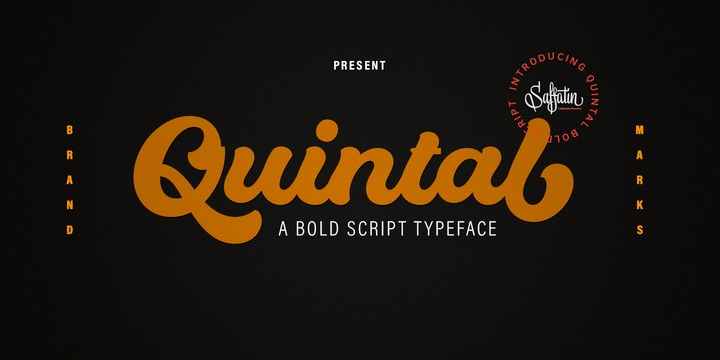
Quintal Script Font
Quintal Script Font is perfect for various design applications including artisan marketplace branding, farmhouse restaurant signage, organic product packaging, rustic wedding invitations, countryside retreat logos, handcrafted goods labels, rural tourism promotions, traditional craft workshop materials, heritage brand identities, and authentic country lifestyle campaigns. This charming typeface excels in projects requiring rural authenticity and traditional craftsmanship appeal that celebrates the timeless values of countryside living and handmade quality.
What makes Quintal Script Font so exciting is its authentic representation of rural heritage and traditional craftsmanship through flowing script letterforms that capture the warmth and personal touch of countryside artisans. The font features organic curves reminiscent of hand-painted farm signs, natural flow patterns that suggest traditional penmanship, and gentle imperfections that evoke the honest character of handcrafted work. Its distinctive rustic elegance and authentic charm make it perfect for brands seeking to communicate traditional values, artisanal quality, and the enduring appeal of countryside authenticity.
The Quintal Script Font family includes regular and bold script weights, along with decorative swashes and rustic ornamental elements that enhance its versatility for different countryside applications. Each style maintains the font's signature rural character while providing options for various traditional design approaches. The family also features farmhouse decorative elements, botanical flourishes, and heritage-inspired borders that can be combined with the letterforms to create cohesive countryside design systems.
Whether you're developing rural brands, artisan products, or countryside tourism campaigns, Quintal Script Font Free Download delivers authentic typography that speaks directly to audiences seeking genuine connection with traditional values and handcrafted quality. This typeface transforms modern communications into warm, welcoming messages that celebrate the enduring appeal of rural living and traditional craftsmanship. The font's heritage appeal makes it particularly effective for organic food brands, artisan marketplaces, and businesses targeting consumers who value authenticity and traditional quality.
Quintal Script Font stands out by delivering genuine countryside authenticity that feels connected to real rural traditions rather than artificial rustic theming. Its carefully crafted flow patterns and organic variations ensure that designs feel genuinely handcrafted while maintaining excellent readability for heritage messaging. From farm-to-table restaurant branding to artisan product packaging, this font provides designers with tools to create communications that celebrate rural heritage and inspire appreciation for traditional craftsmanship through warm, countryside-inspired script typography.